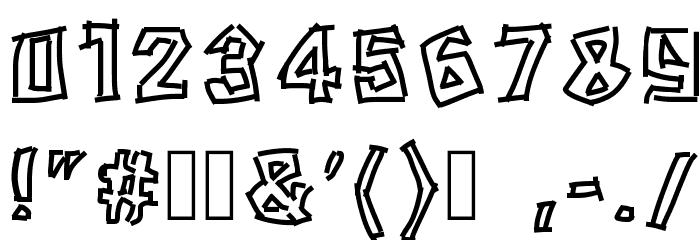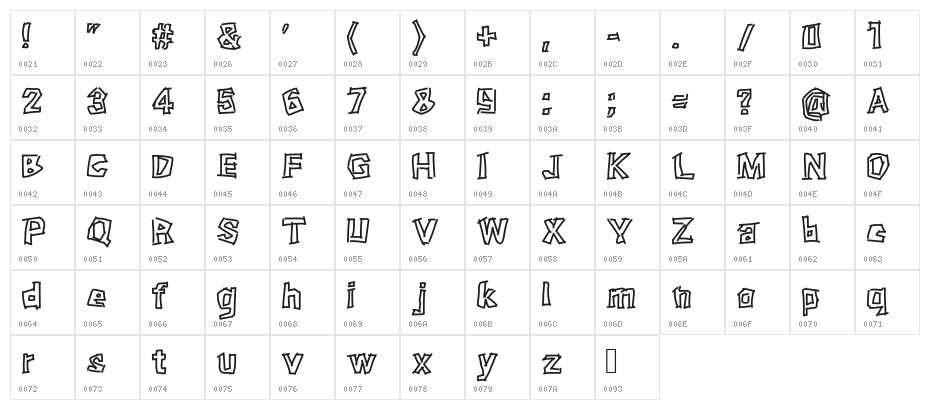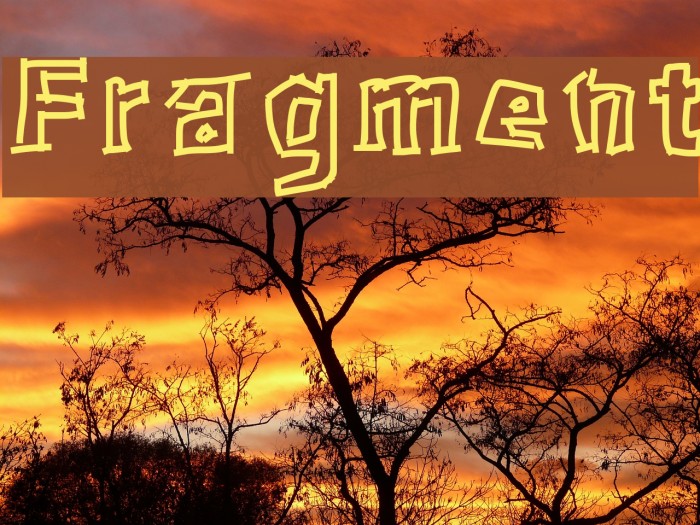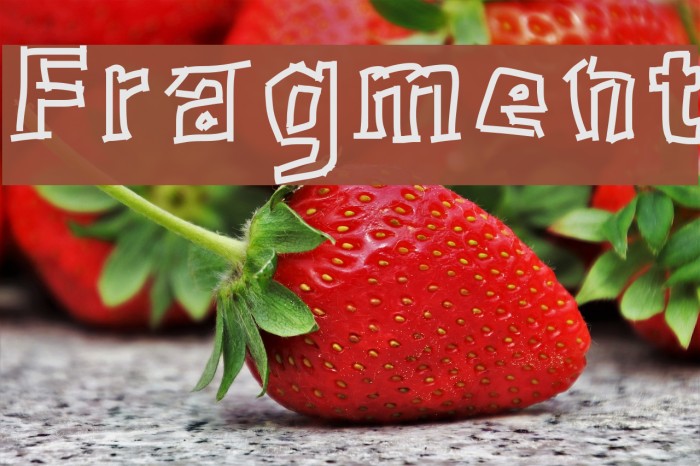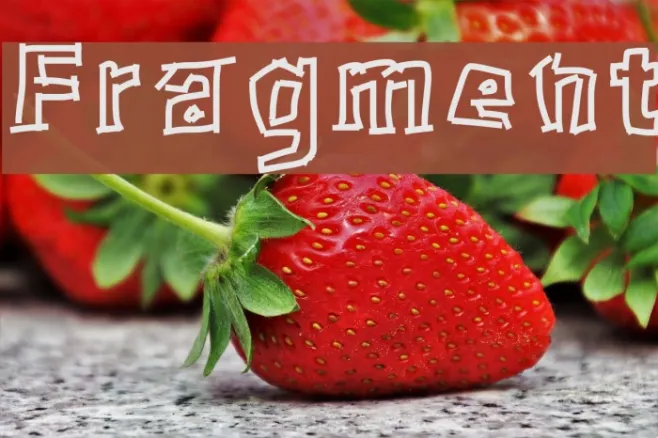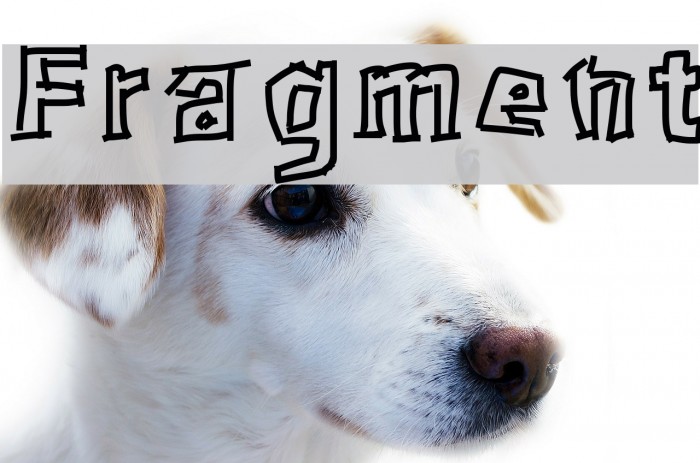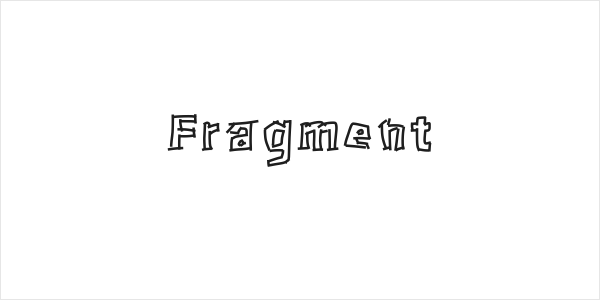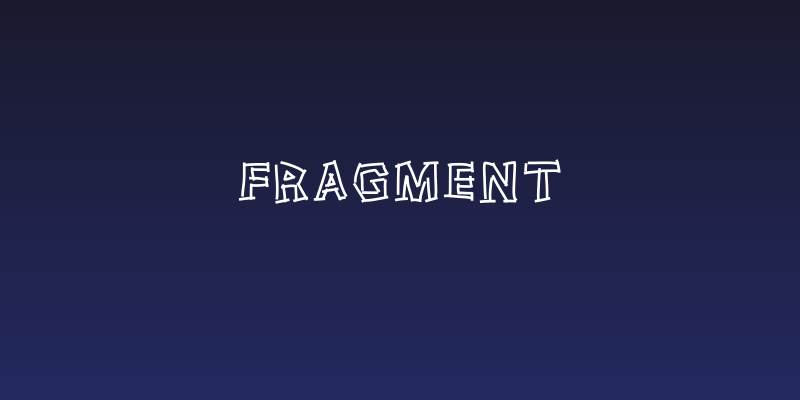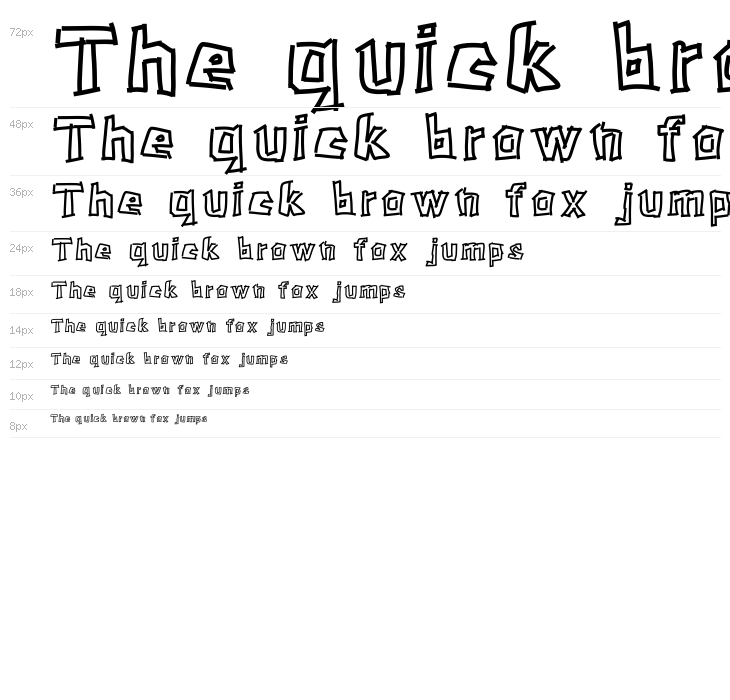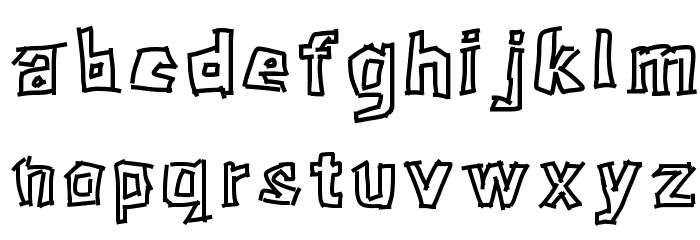
Fragment Font
Fragment Description
This font features a bold, hand-drawn style with a playful and slightly chaotic appearance. Each character is outlined with a thick, uneven stroke, giving it a three-dimensional, almost graffiti-like effect. The letters are irregular in shape, with varying angles and curves that create a dynamic and energetic feel. This font is highly decorative, making it ideal for eye-catching designs. The uppercase and lowercase letters maintain a consistent style, while the numbers and special characters add to the overall quirky aesthetic. The font's unique personality makes it suitable for creative projects that require a bold statement.